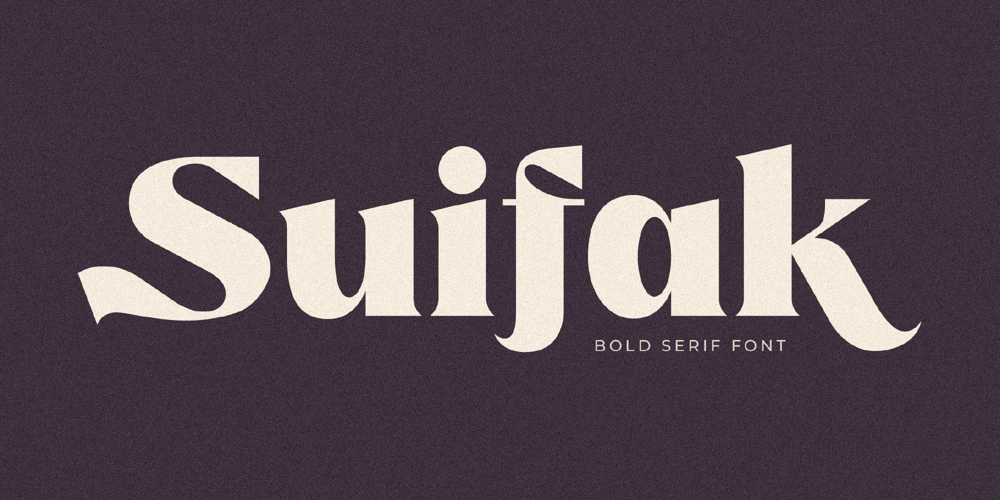
Suifak Font Family was designed by Heru Utama Putra and published by Letterena Studios. Suifak contains 2 styles and family package options. Suifak is a modern and classic serif typeface that has its own unique style and fashionable look. This typeface is perfect for an elegant and luxurious logo, book or movie title design, fashion brand, magazine, clothes, lettering, quotes, and so much more.